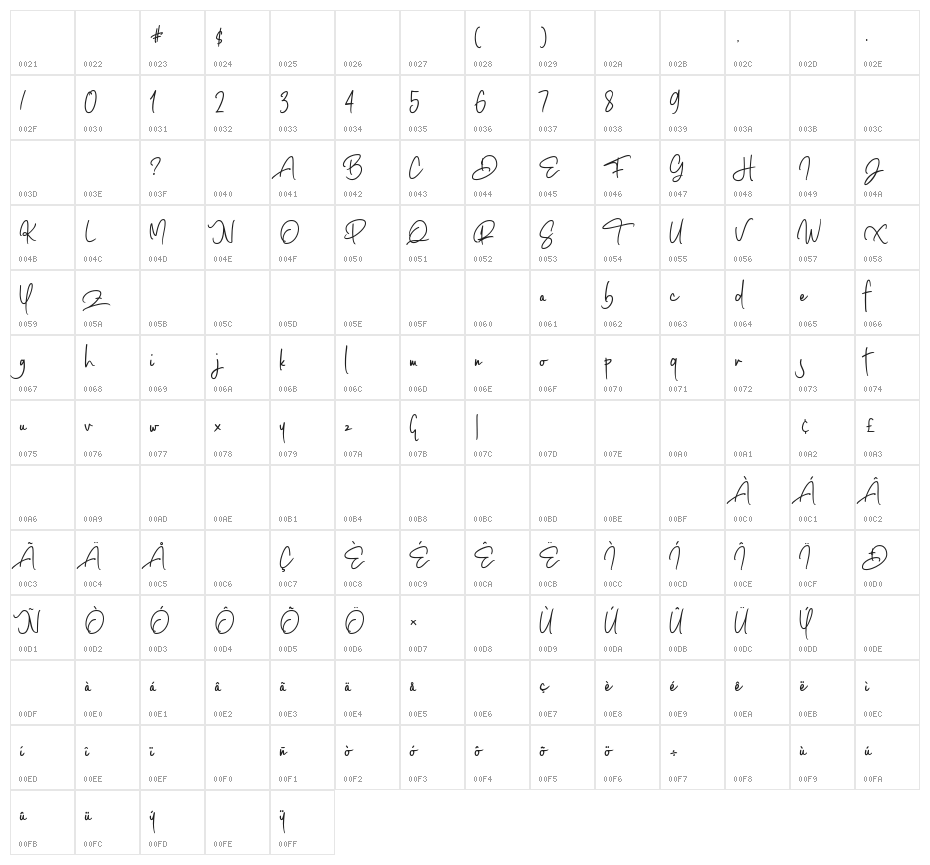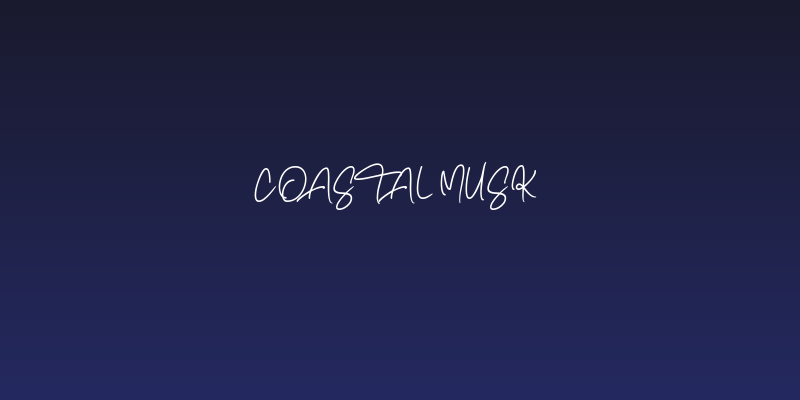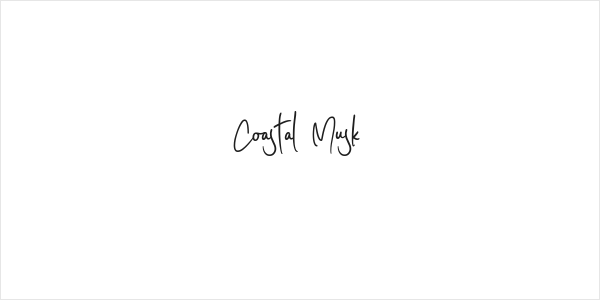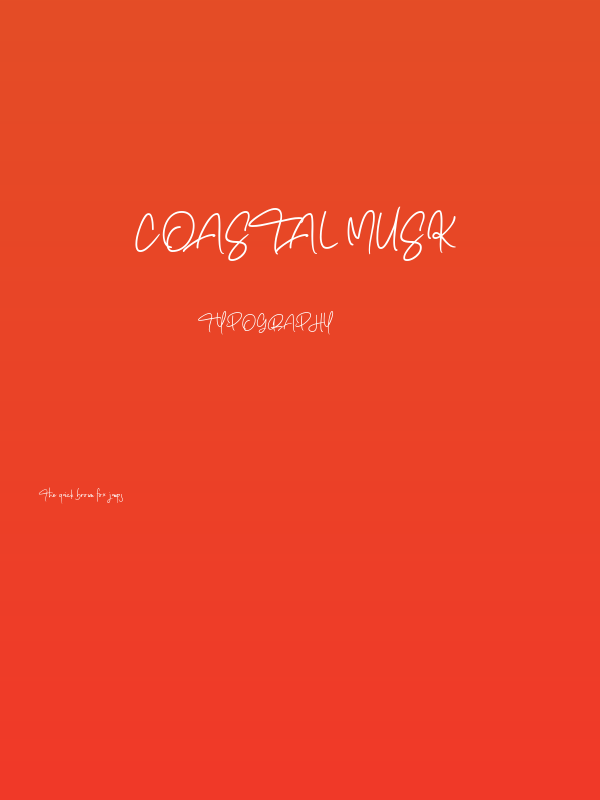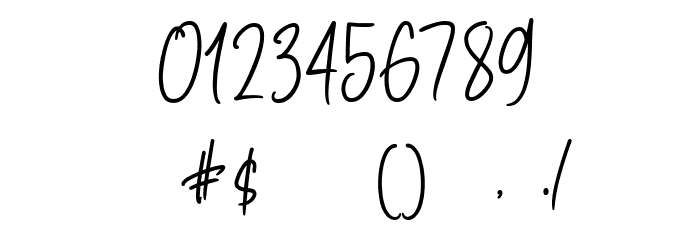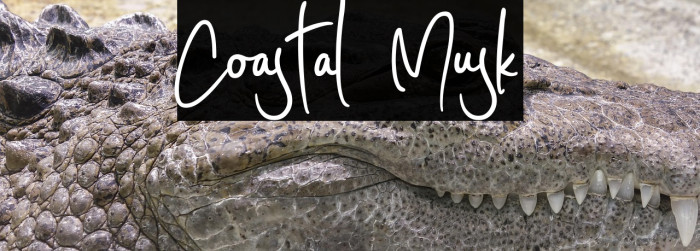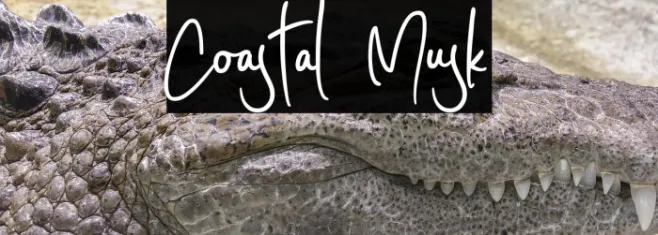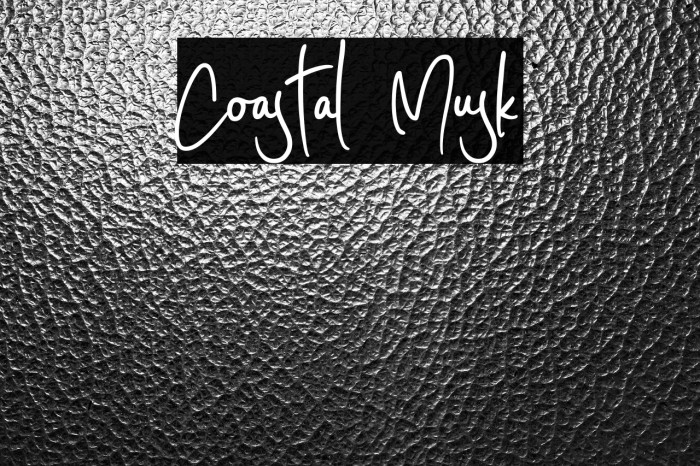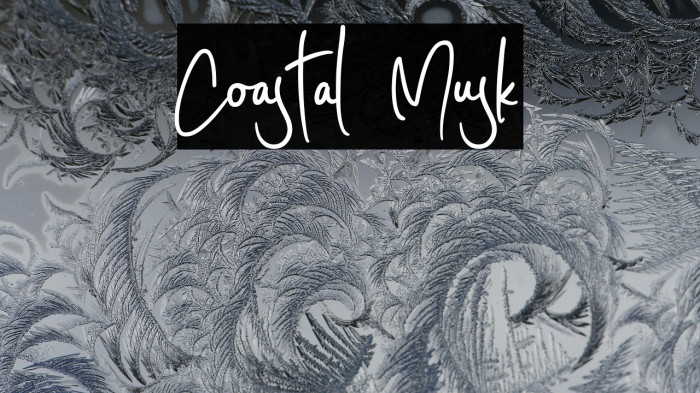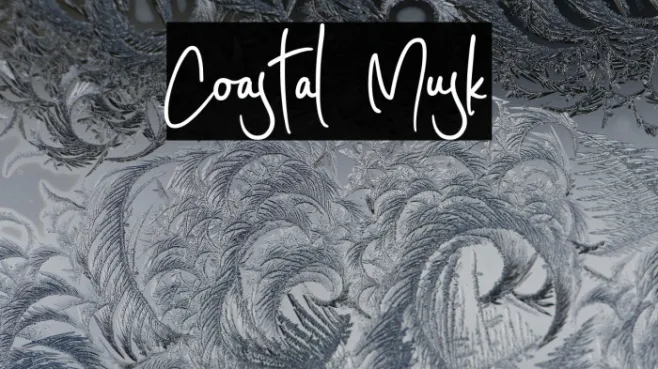
Coastal Musk Font
Coastal Musk Description
This font features a lively and flowing script style, reminiscent of casual handwriting. The characters are connected with smooth, sweeping strokes, giving it a dynamic and organic feel. The uppercase letters are bold and expressive, with unique flourishes that add personality. The lowercase letters maintain a consistent flow, enhancing readability while retaining a playful aesthetic. Numbers and special characters are crafted with the same attention to detail, ensuring uniformity across all elements. The overall design is both elegant and approachable, making it suitable for a variety of creative projects.